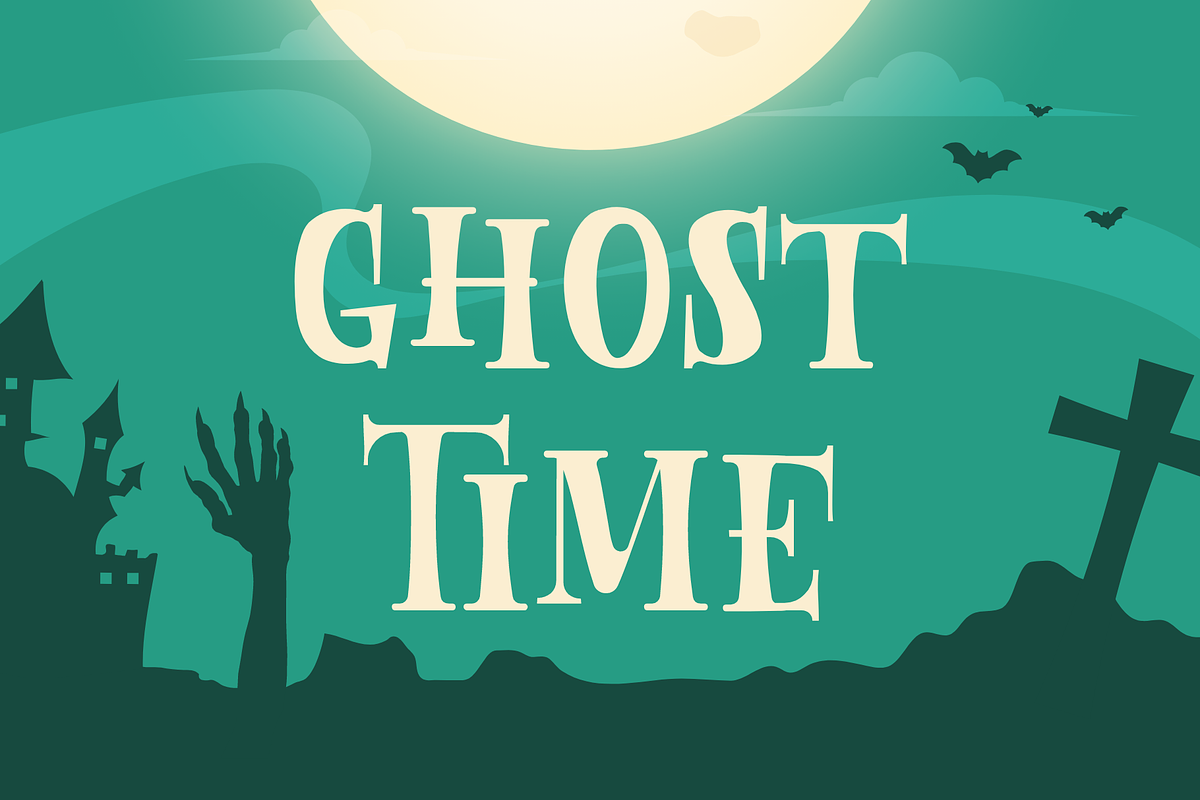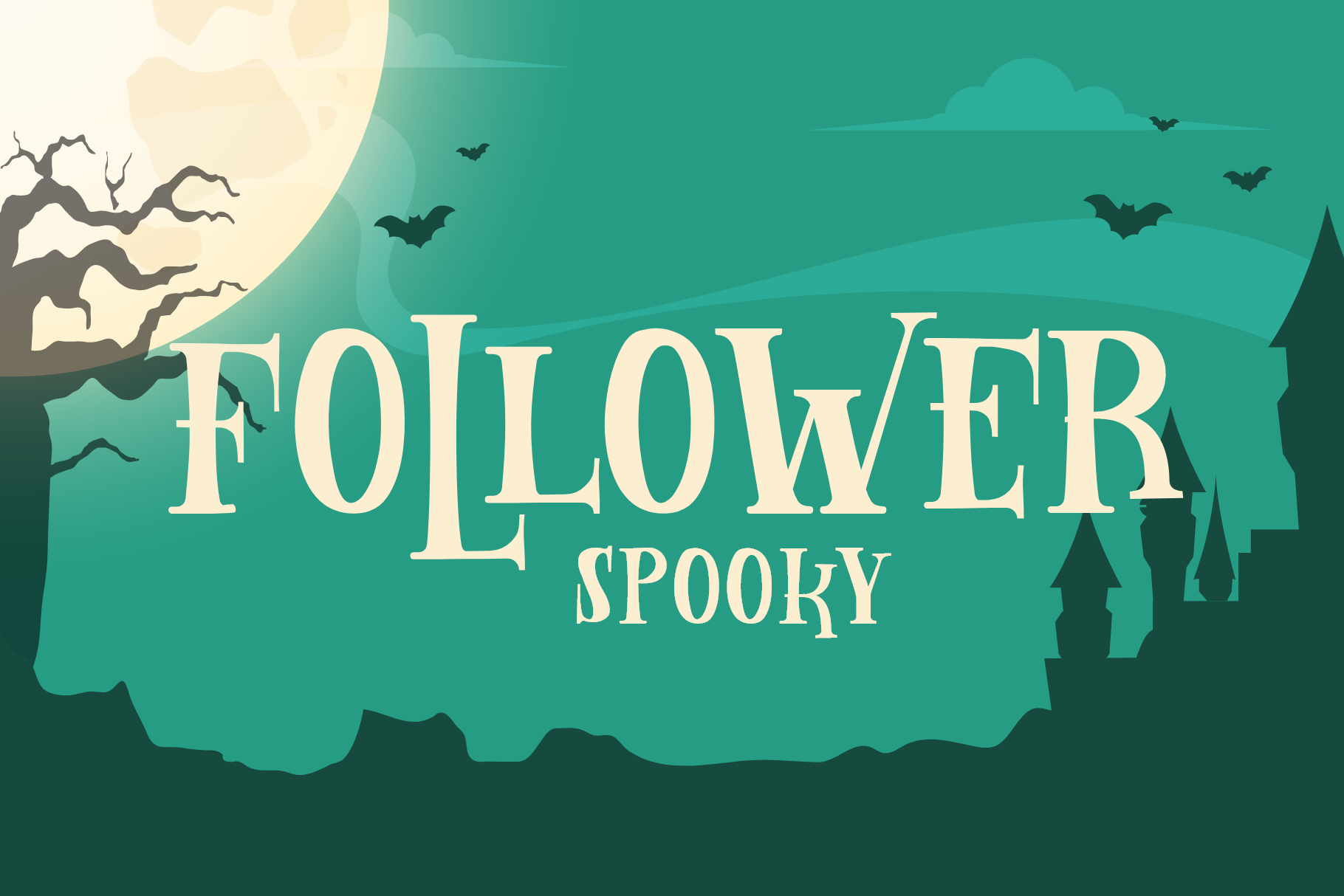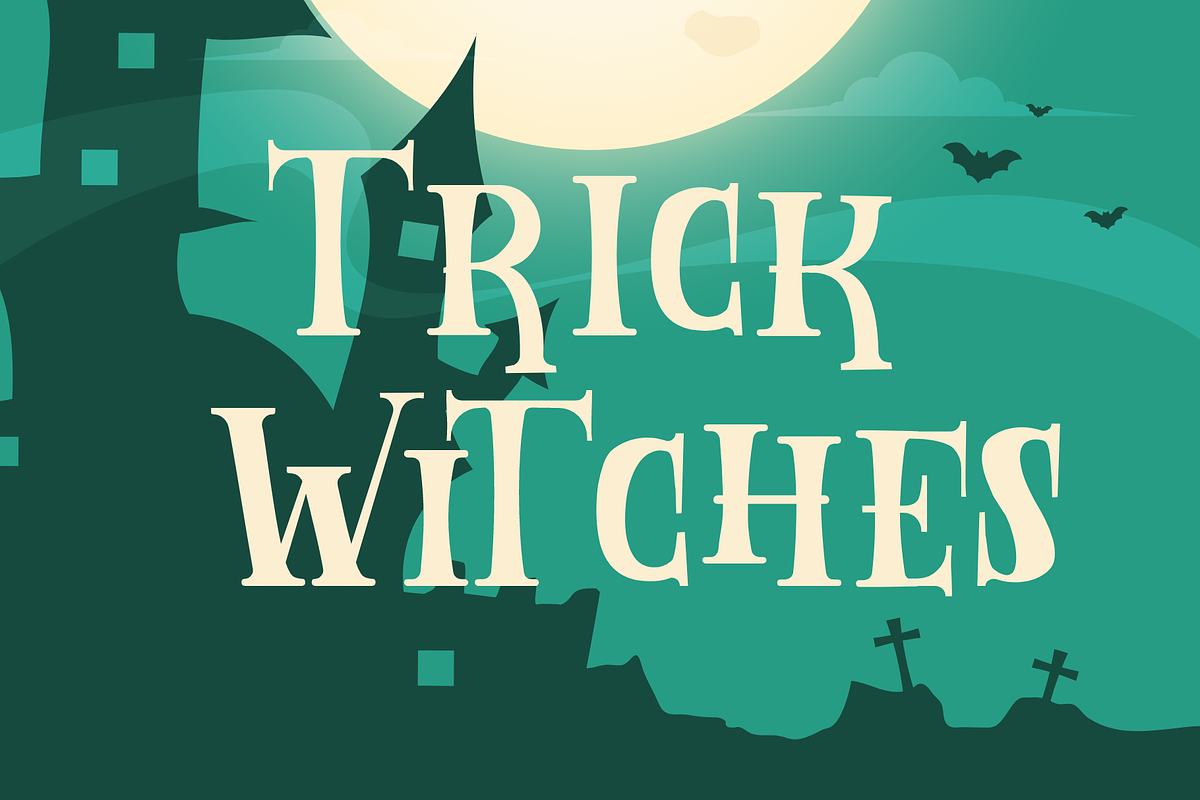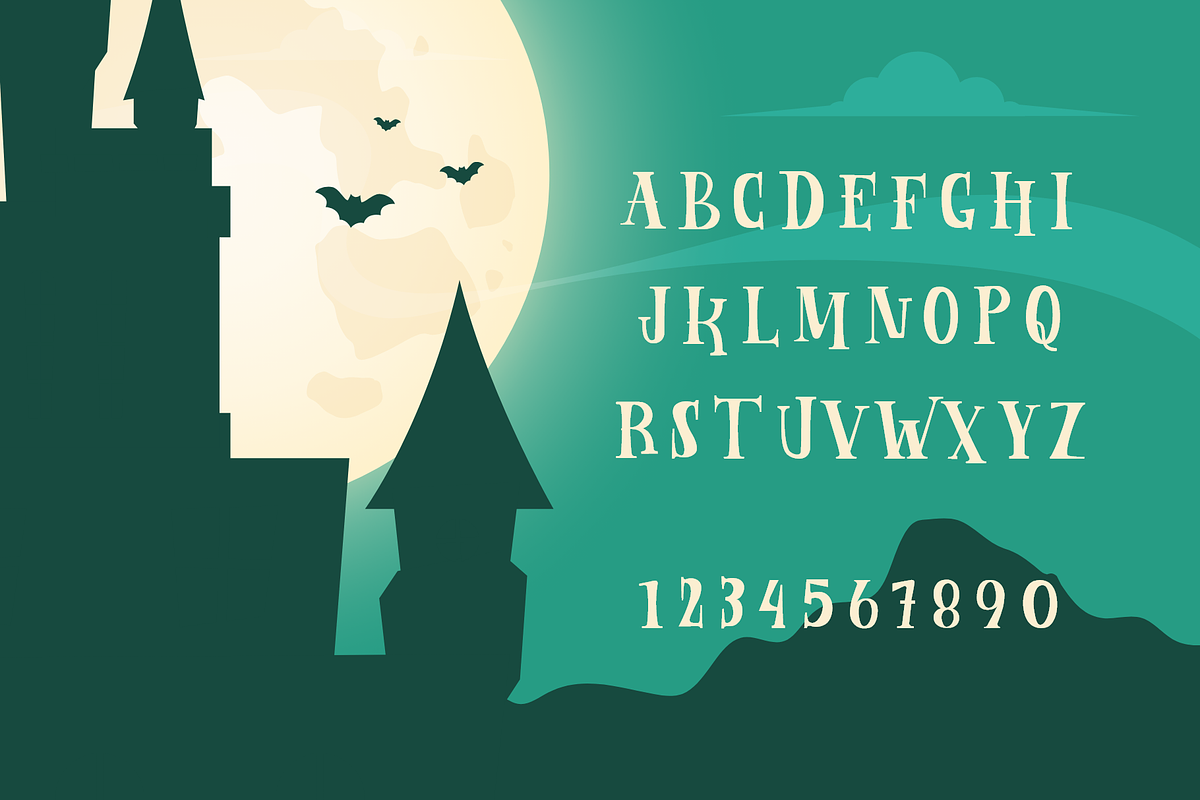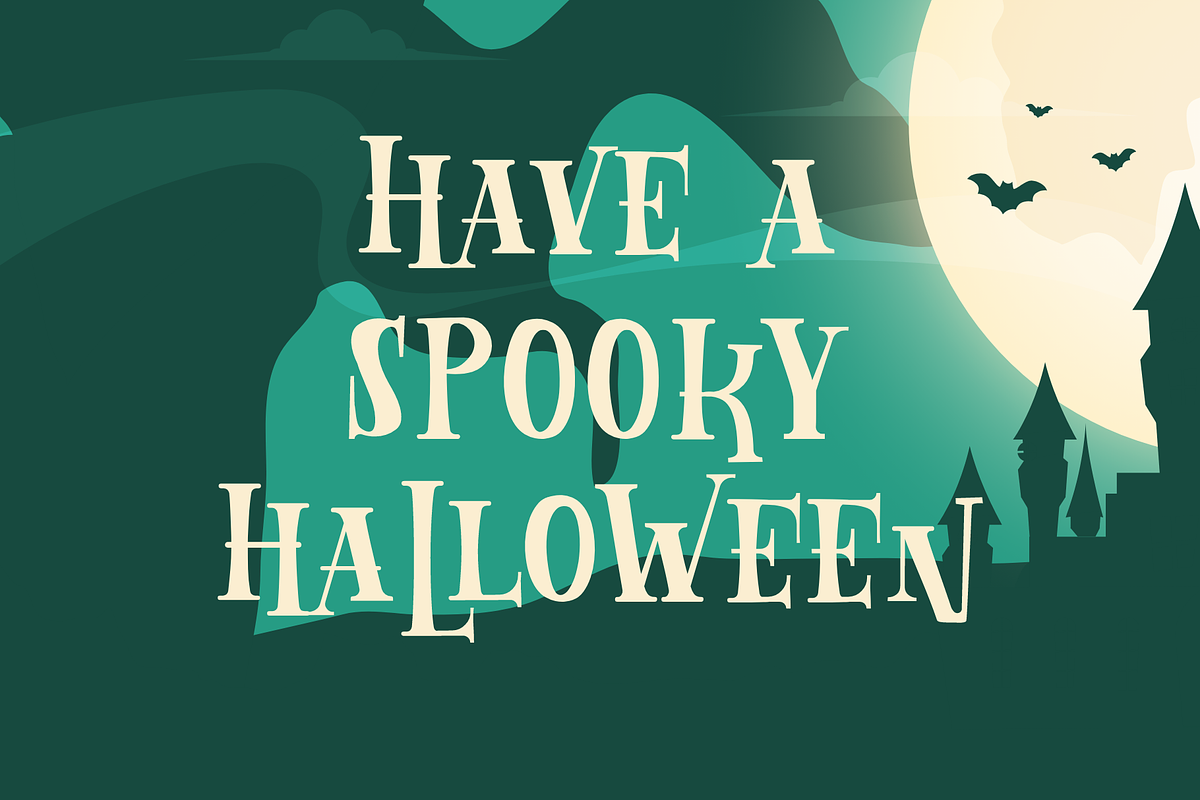
Follower Spooky halloween Font
Follower Spooky halloween Font is a typeface designed for your halloween decoration needs, not only that Follower Spooky halloween Font is also suitable for spooky posters. uppercase, lowercase, symbols and numbers are available. otf, ttf and web font files are available.